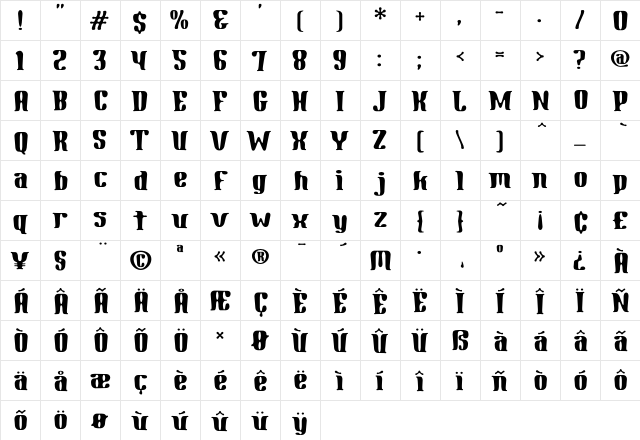
Gnomad BGauge Font Preview
Gnomad BGauge
Design Context for Gnomad Typeface
Gnomad is a composed and adaptable typeface that performs quietly and consistently across a wide range of design contexts.